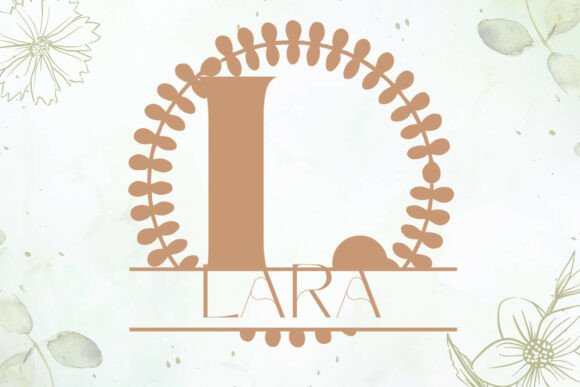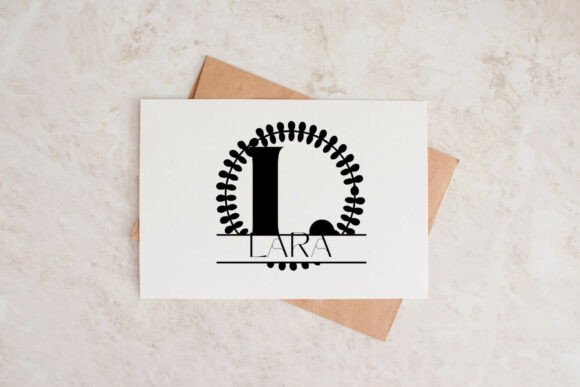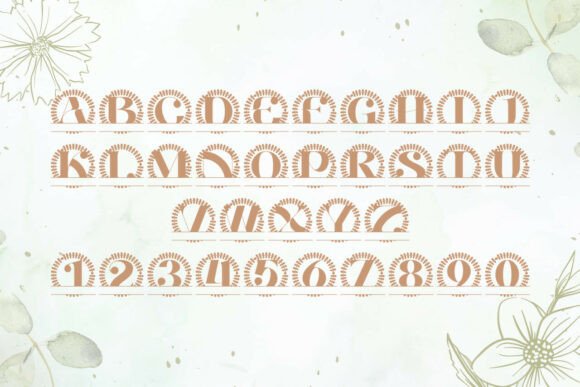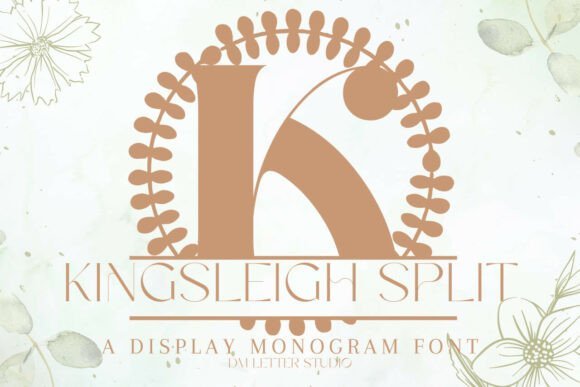
Introduction to Kingsleigh Split Monogram Font
Meet Kingsleigh Split Monogram Font turns any initial into an heirloom-worthy, name-ready emblem in seconds.
Calm, confident letterforms carry a stately presence, while a precise horizontal split creates natural space for names, dates, or short words Because spacing stays even and counters remain open, designs look polished on tiny tags, door hangers, tumblers, ornaments, menus, and wall art.
Key Features of Kingsleigh Split Monogram Font